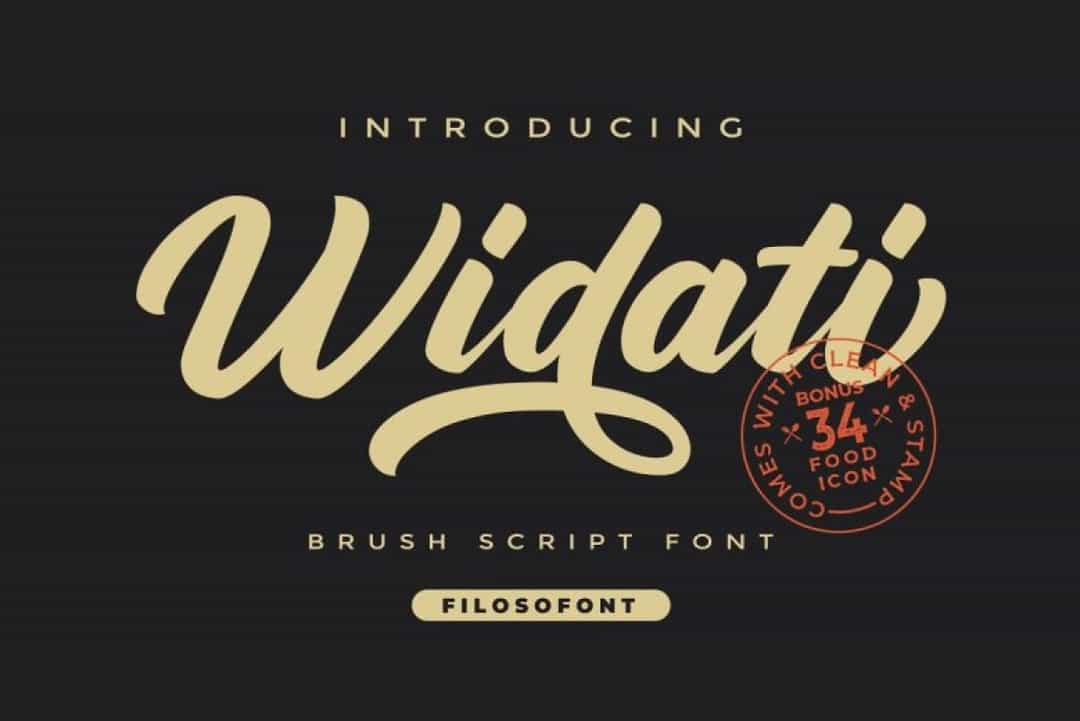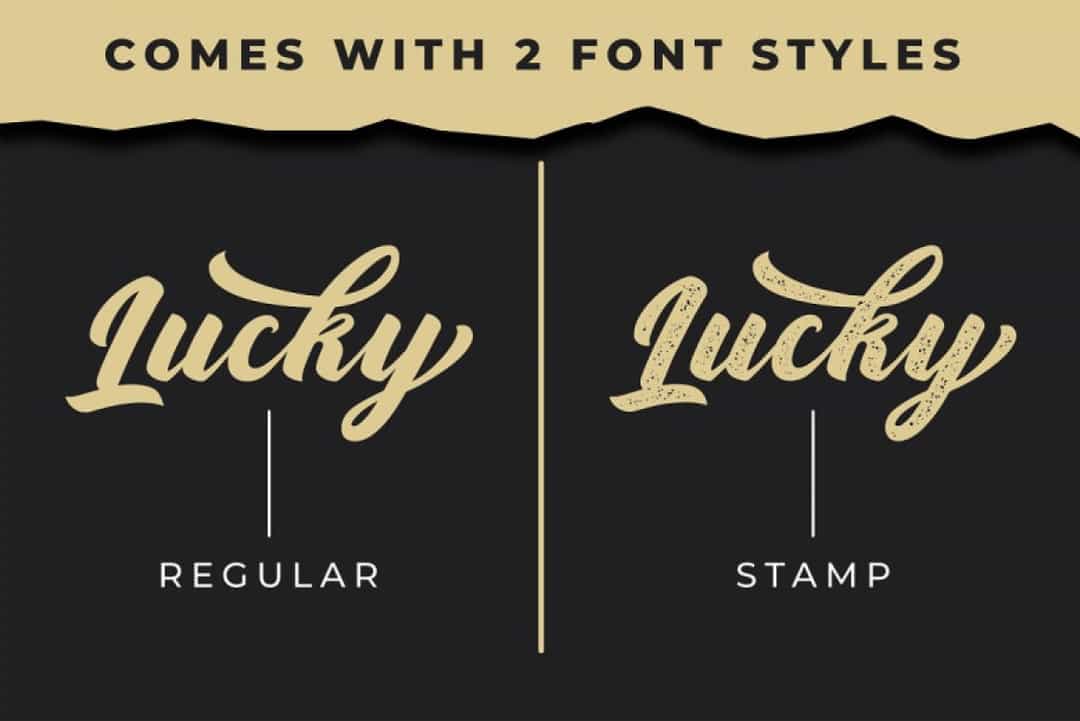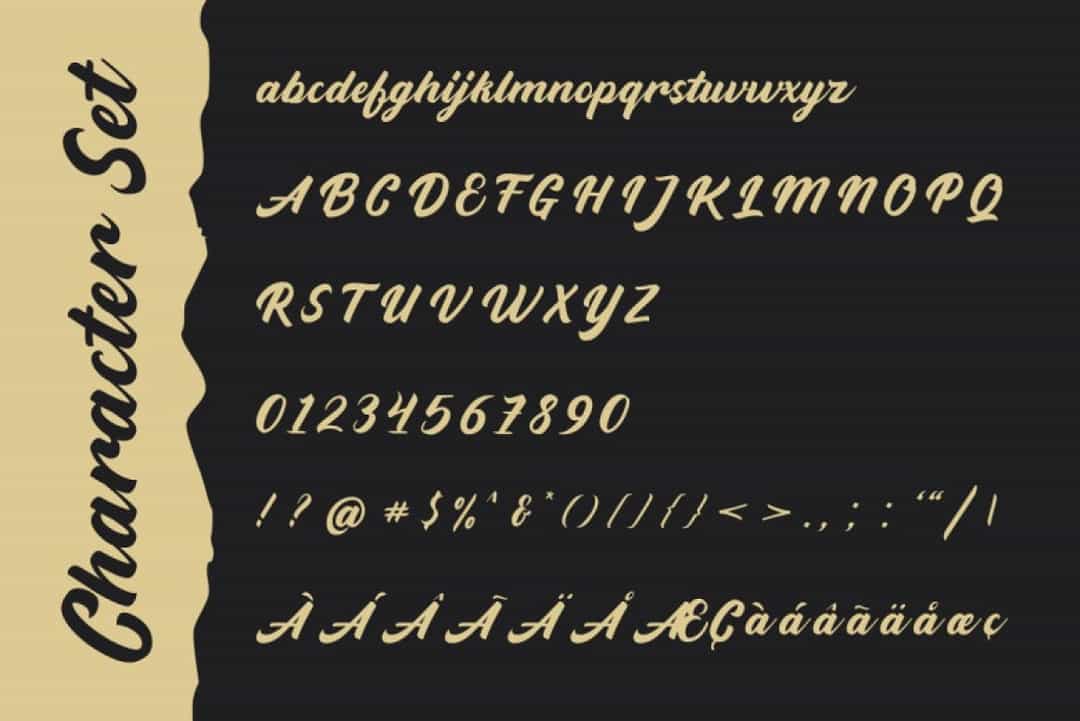
Welcome to Widati Font, our brand new script font featuring beautiful brush script fonts with distinct alternative fonts! Perfect for logos as well as formal and informal designs like labels packaging logos fashion or other commercial purposes!